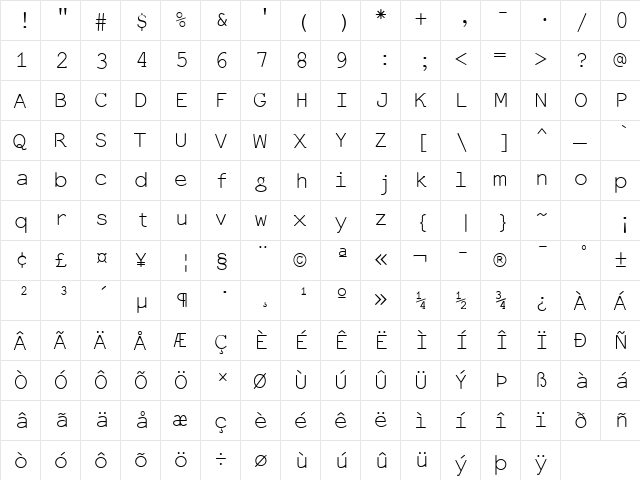
Everson Mono Unicode Regular
Design Context for Everson Mono Unicode Typeface
Everson Mono Unicode brings the precise, column-aligned rhythm of monospaced typography to designs that value technical clarity and systematic order.
A natural fit for code editors, technical documentation, developer-focused branding, and terminal-inspired UI.
Pro Tip: Pair Everson Mono Unicode with a proportional sans for UI contexts where code-style labels and regular body copy need to coexist.